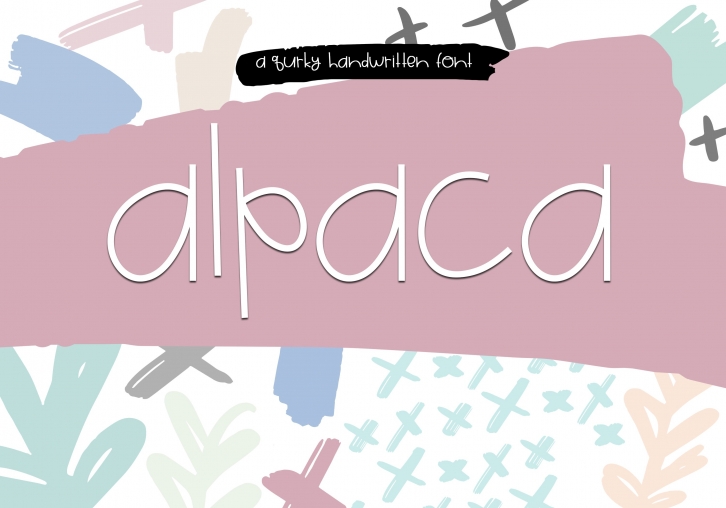
Alpaca My Lunch is a fun and quirky handwritten font.
It is perfect for websites, posters, quotes, stationary and more!
Note: The letters are the same for capital and lowercase.
This font does include accent characters.